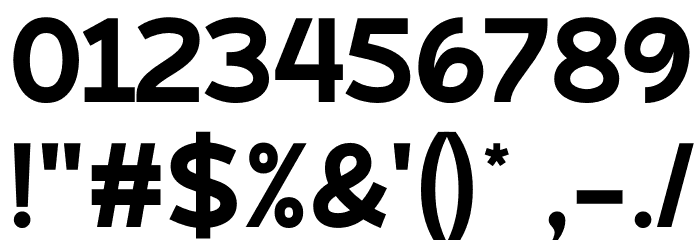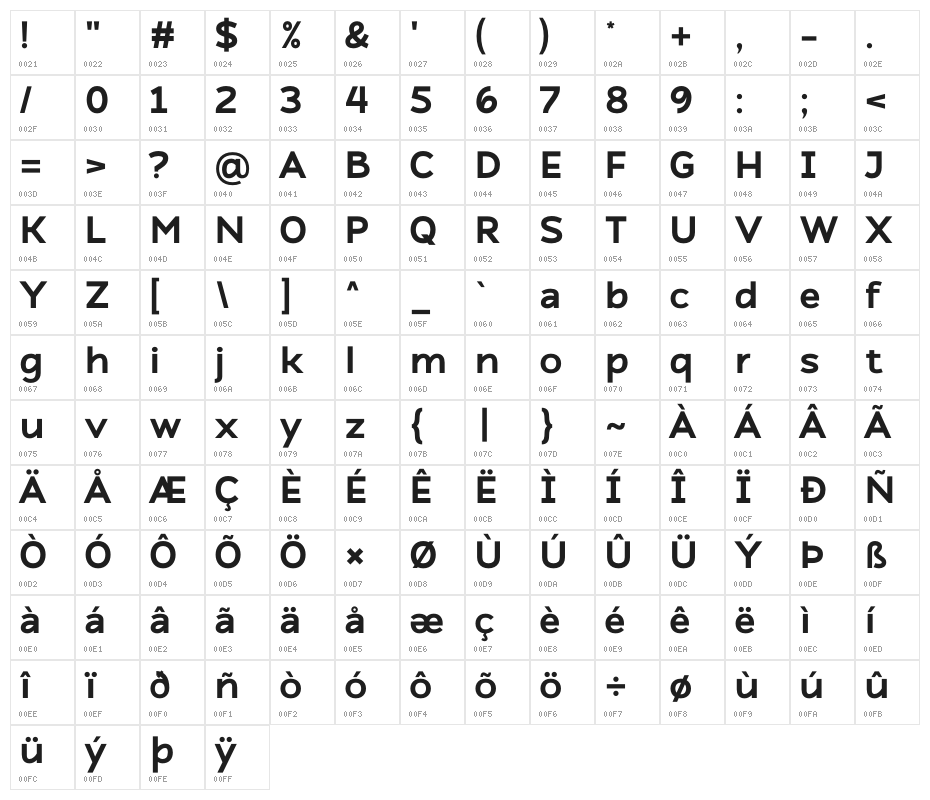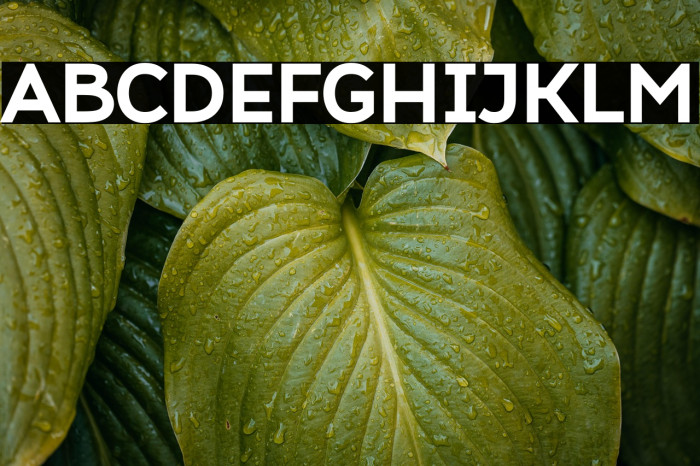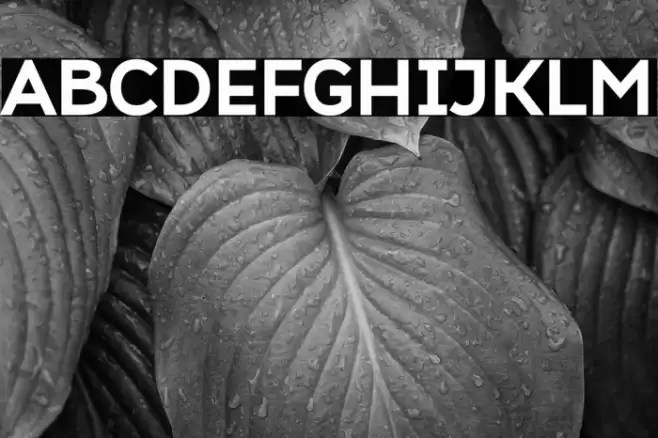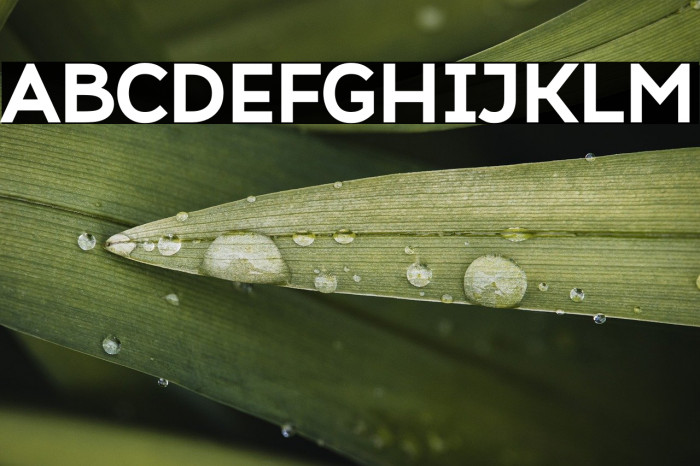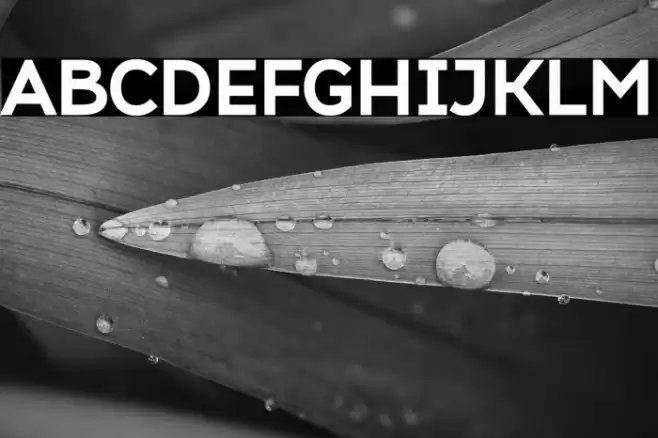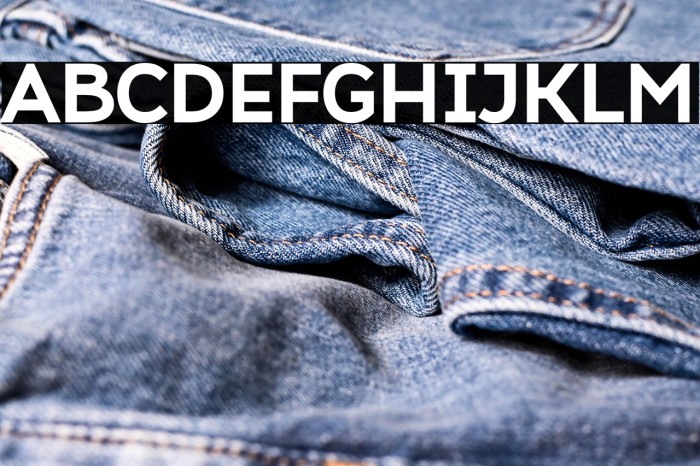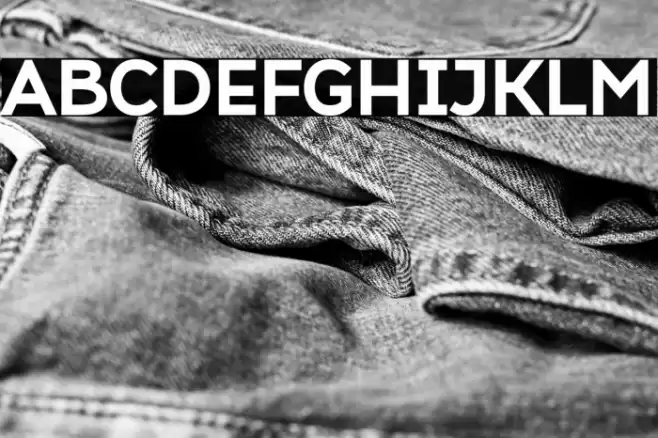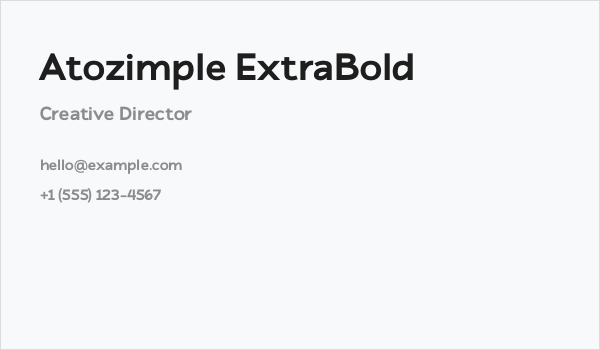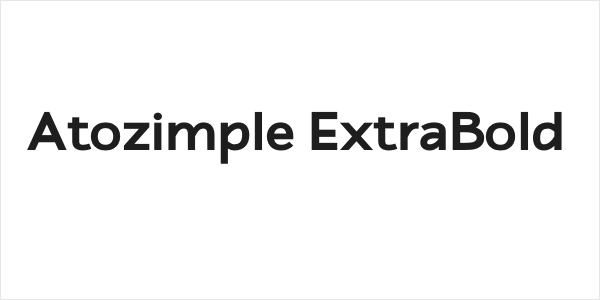
Atozimple ExtraBold Font
Atozimple ExtraBold Description
This font features a bold and modern sans-serif design, characterized by its clean lines and geometric shapes. The uppercase and lowercase letters are well-proportioned, with a consistent stroke width that conveys a sense of stability and strength. The numerals are clear and easy to read, making them suitable for various applications. Special characters are included, maintaining the font's cohesive style. The overall appearance is sleek and contemporary, making it versatile for both digital and print media.